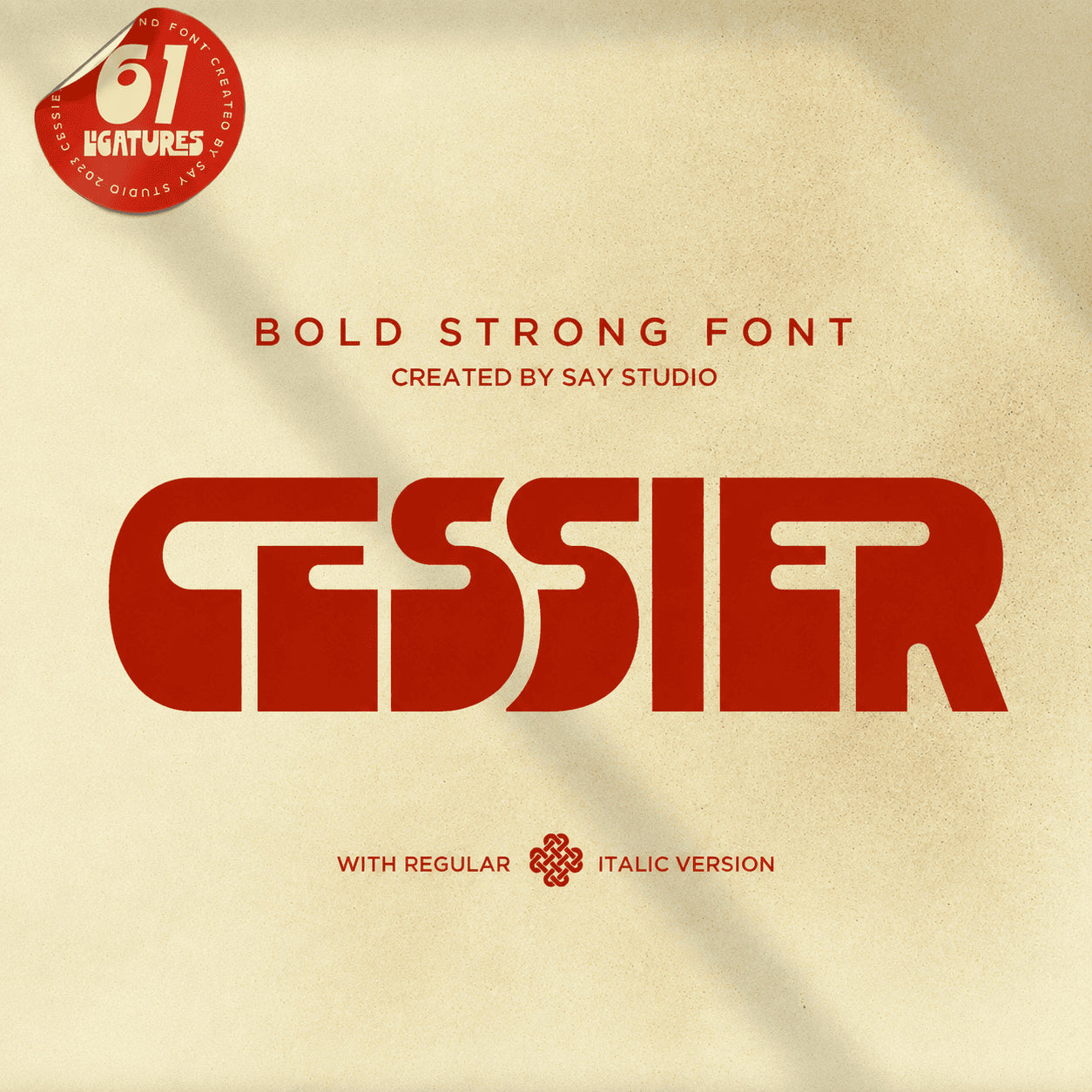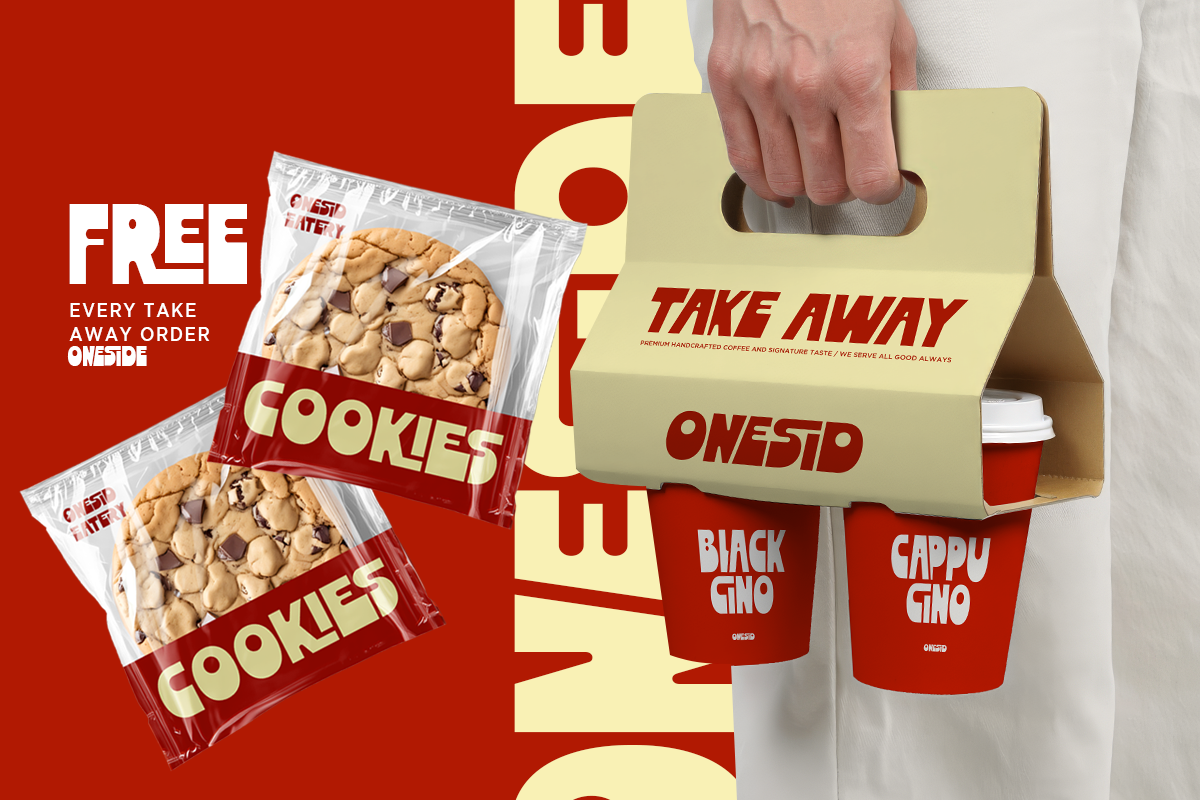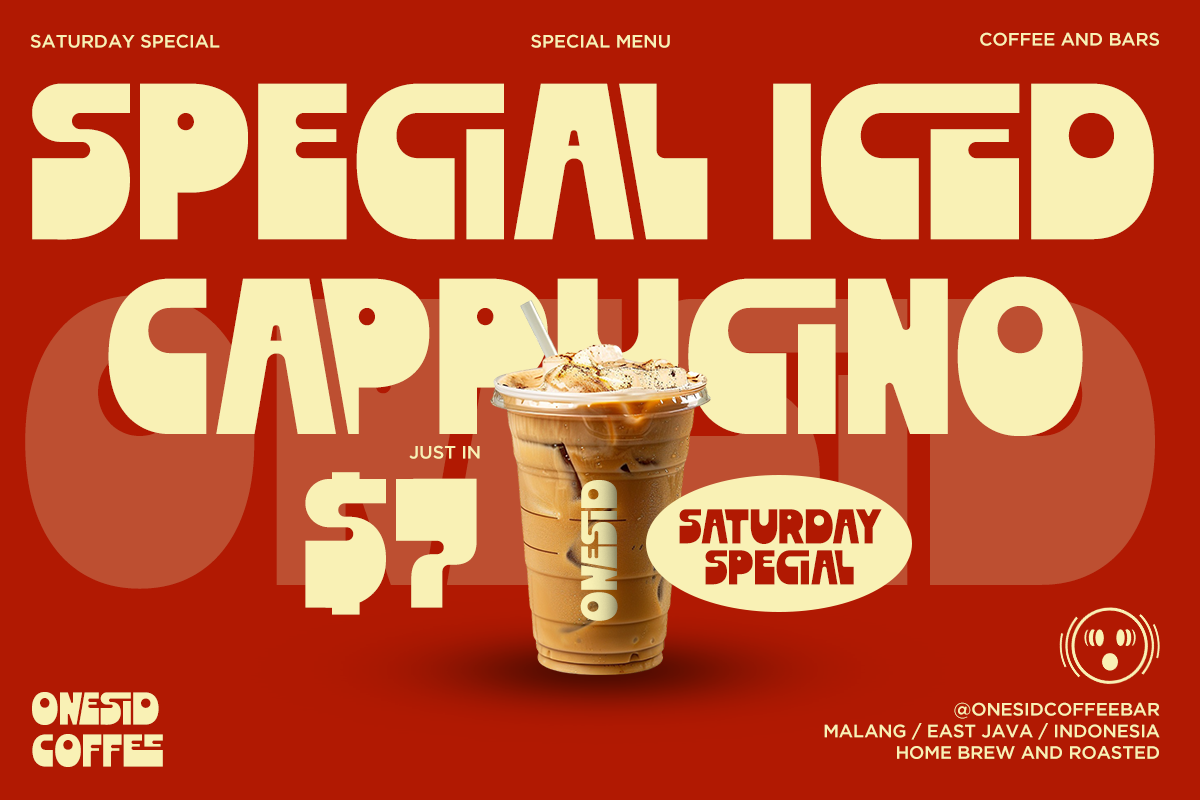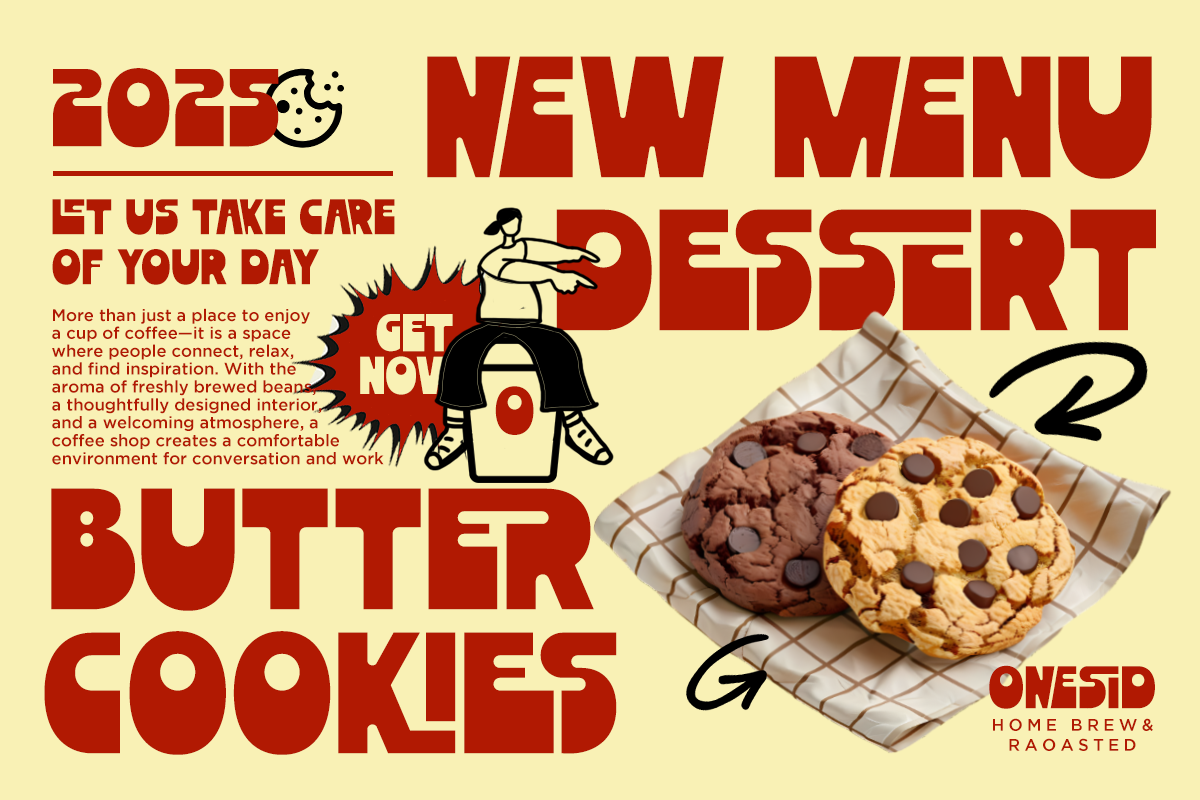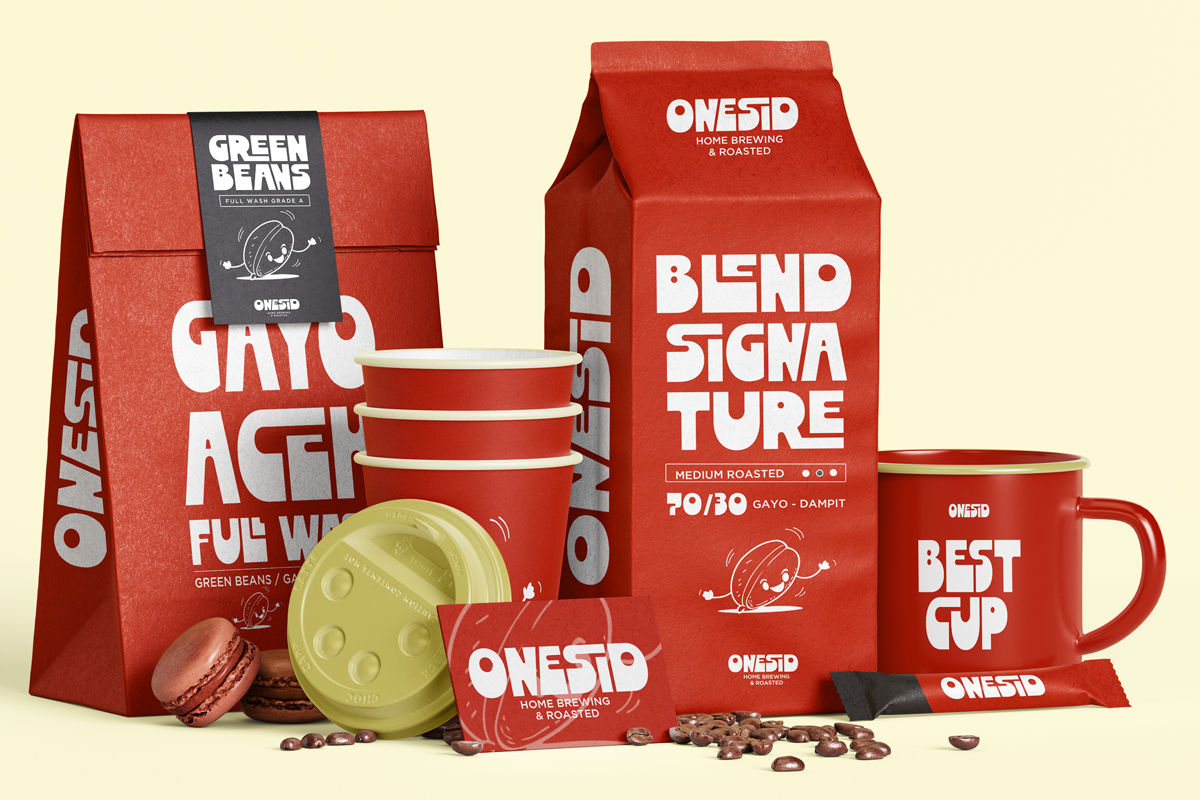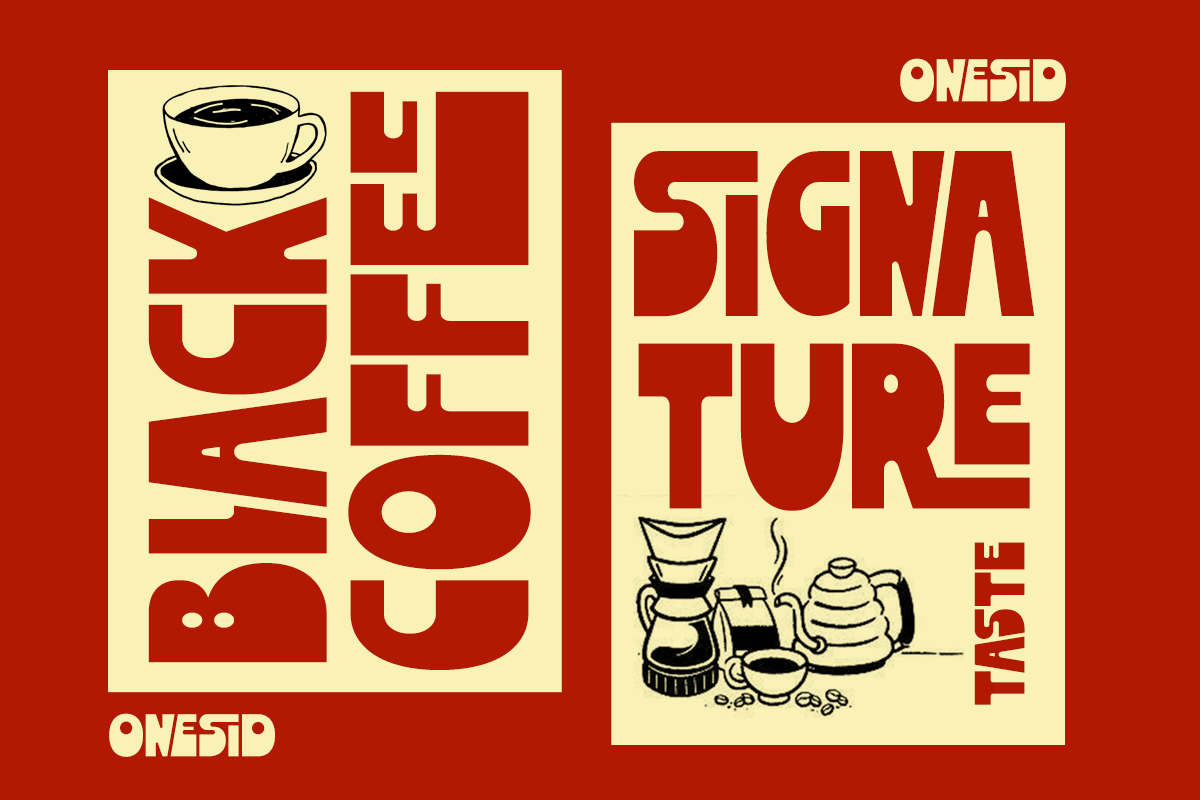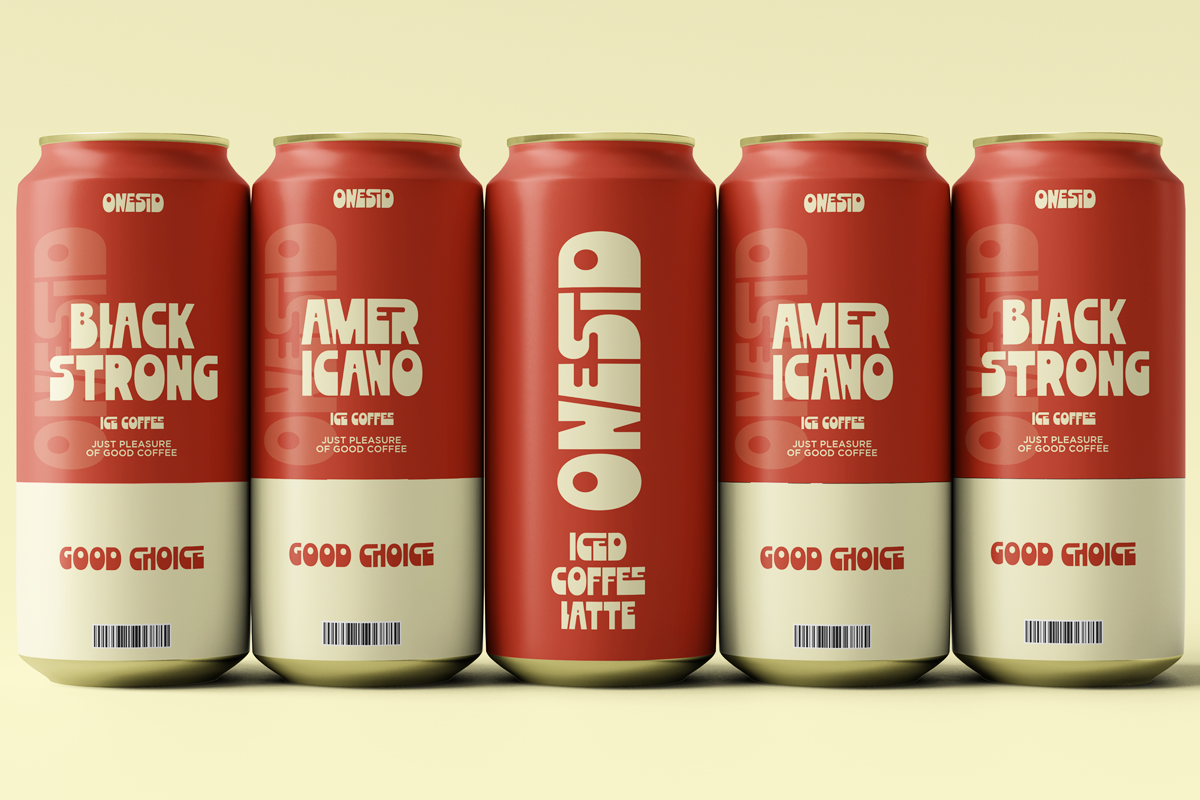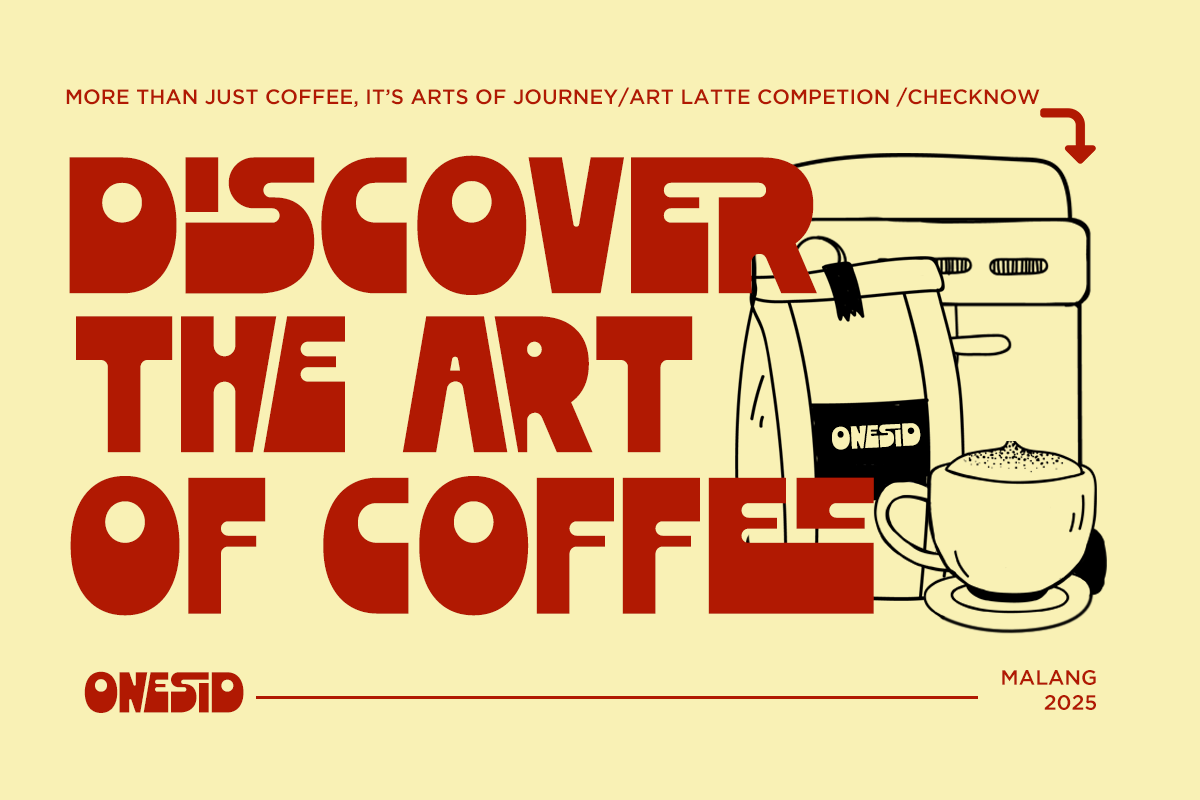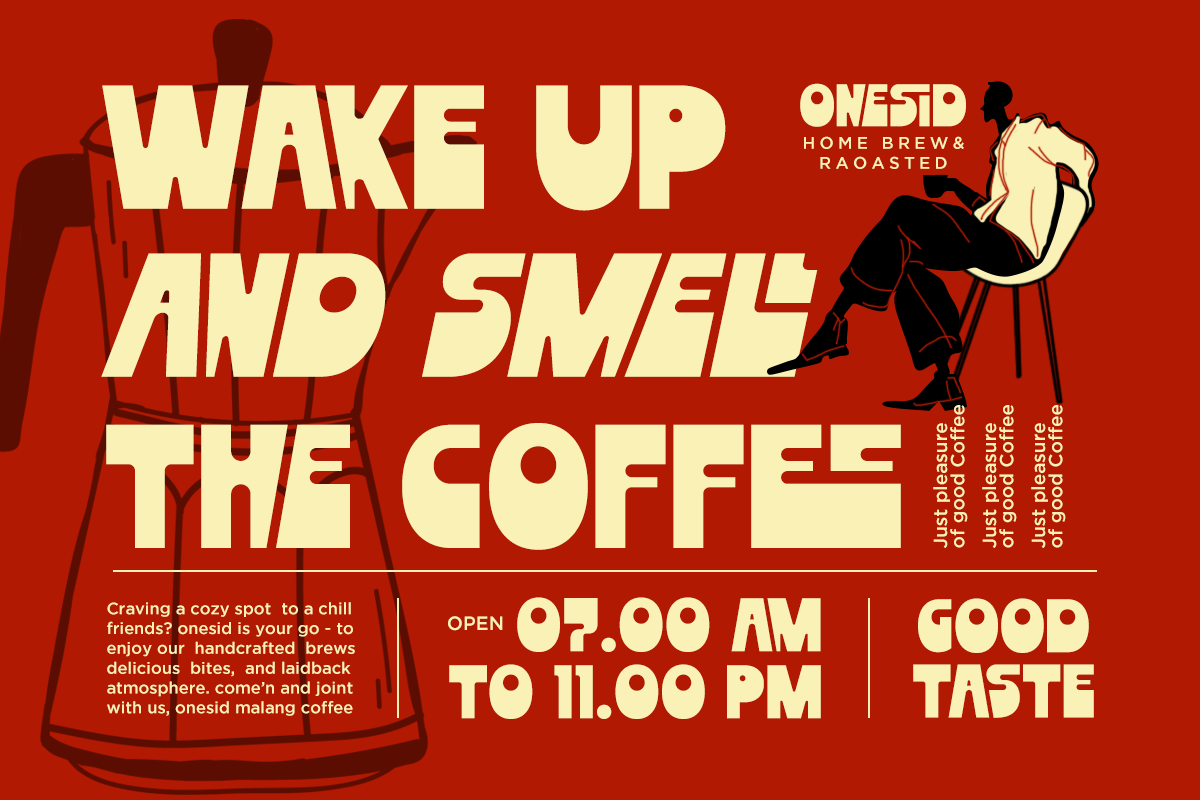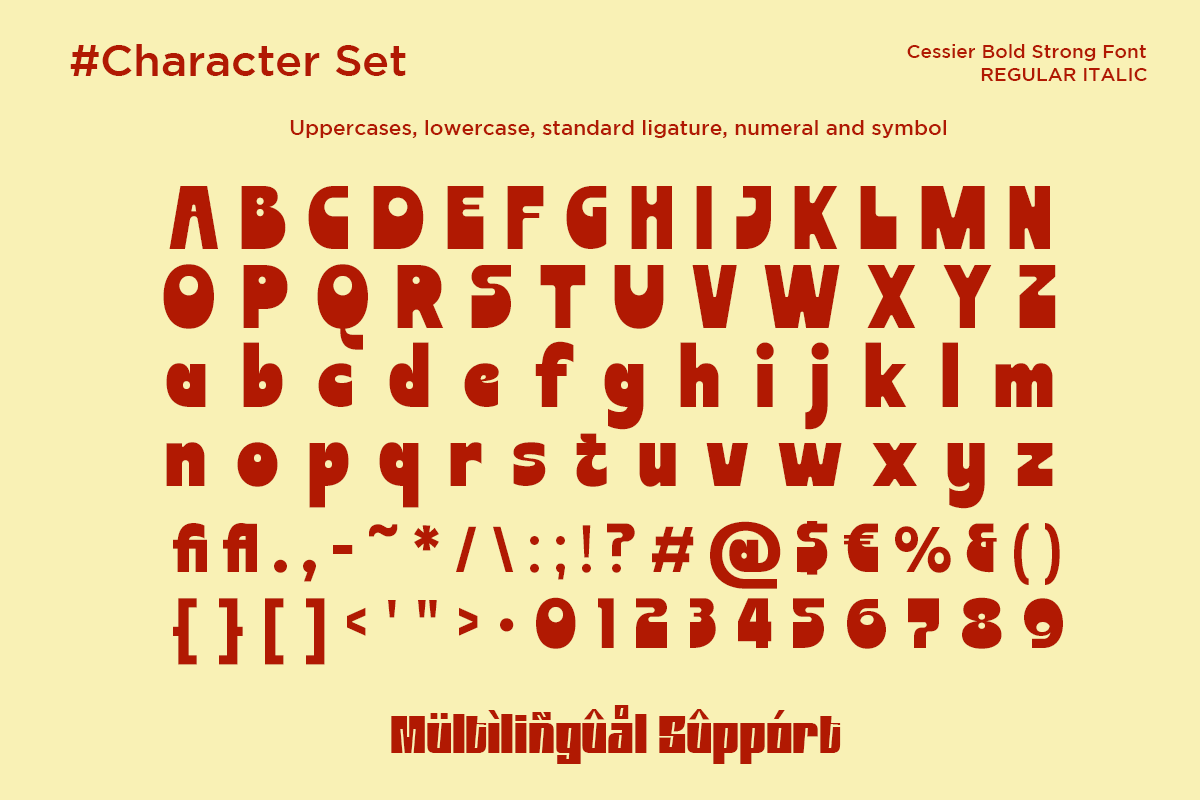
Cessier - Bold Chunky Sans Serif Font
Cessier is a bold chunky sans serif font designed to make every headline stand out. With its heavy letterforms, playful proportions, and distinctive retro character, Cessier brings a confident and energetic personality to any design. Its strong visual presence works especially well when typography needs to become the main focal point.
Perfect for coffee shops, restaurants, food packaging, bakery branding, menu designs, posters, advertising, logos, merchandise, editorial layouts, and social media graphics, Cessier is built for projects that need a fun yet powerful visual identity. Its chunky structure makes short headlines highly impactful while maintaining a friendly and approachable feel.
From bold café campaigns and food labels to vintage-inspired branding and modern promotional artwork, Cessier offers a versatile display style that feels both nostalgic and contemporary. Use it to create memorable headlines, expressive logos, eye-catching packaging, and playful brand identities that demand attention.
Stylistic Ligatures
Cessier is a bold chunky sans serif font with heavy letterforms and a retro character, available in Regular and Italic styles with stylistic ligatures. The package includes uppercase and lowercase letters, numbers, symbols, punctuation, multilingual support, and OTF, TTF, and WOFF file formats.